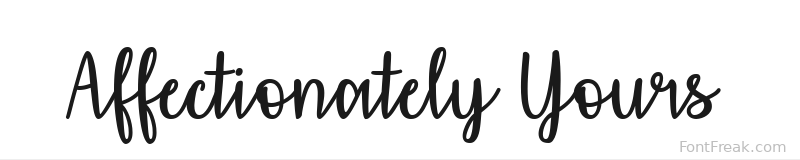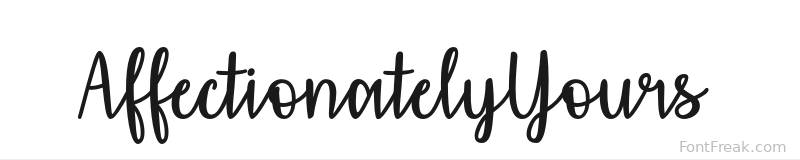
Affectionately Yours
About Affectionately Yours
The "Affectionately Yours" font by Misti Hammers is a delightful handwritten typeface that exudes warmth and charm. As a script font, it features smooth, flowing lines that mimic the natural rhythm of cursive writing. The stroke weight varies subtly throughout the characters, creating a dynamic visual appeal that draws the eye. The moderate contrast between thick and thin strokes enhances its legibility while maintaining an artistic flair. The spacing is thoughtfully designed, allowing each letter to breathe and ensuring that the font remains readable even in longer texts.
This font is ideal for a range of applications, particularly those that call for a personal touch. It's perfect for wedding invitations where romance and elegance are key, enhancing the overall aesthetic of the occasion. Additionally, "Affectionately Yours" serves as a charming choice for greeting cards, capturing heartfelt sentiments with its inviting style. Small business owners can utilize this font for branding materials, such as logos and product labels, to convey a friendly, approachable image. Content creators will find it useful for social media graphics, where eye-catching typography can help messages stand out in a crowded feed.
The target audience for this font includes graphic designers, small business owners, and content creators looking to add a touch of personality to their projects. The versatility of "Affectionately Yours" makes it suitable for various creative endeavors, appealing to those who appreciate a handcrafted aesthetic.
What truly sets the "Affectionately Yours" font apart is its ability to convey emotion through typography. Its unique blend of elegance and warmth makes it a standout choice for anyone seeking to create memorable designs. For those interested in enhancing their projects, the Affectionately Yours font free download is an excellent opportunity to explore its potential.